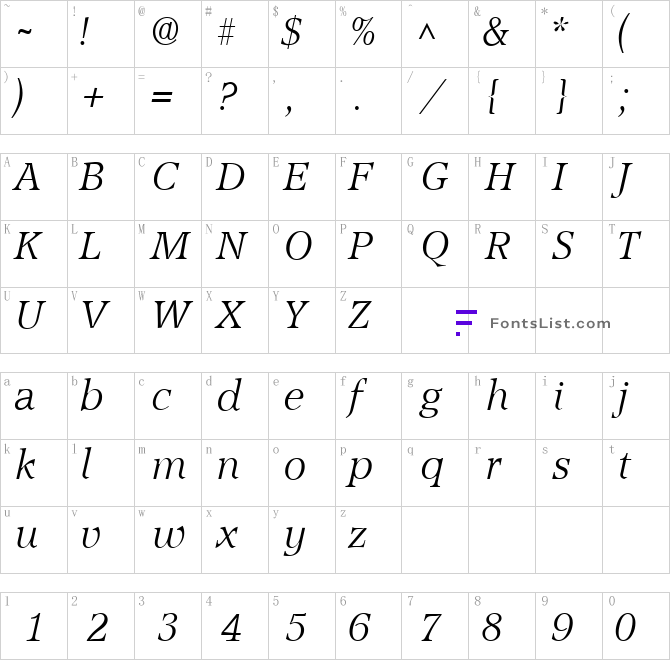
- Font Name:Accord Light SF
- Full Name:Accord Light SF Italic
Accord-Light-SF-Italic-copy-2-.ttf is a very beautiful artistic font, Accord-Light-SF-Italic-copy-2-.ttf is widely used in the design and printing of various books and pictures,Accord-Light-SF-Italic-copy-2-.ttf has a strong visual impact,Accord-Light-SF-Italic-copy-2-.ttf is a commonly used font in newspapers, magazines and books, and is used in posters, e-commerce Poster design, store design, logo design, font design and other fields.Accord-Light-SF-Italic-copy-2-.